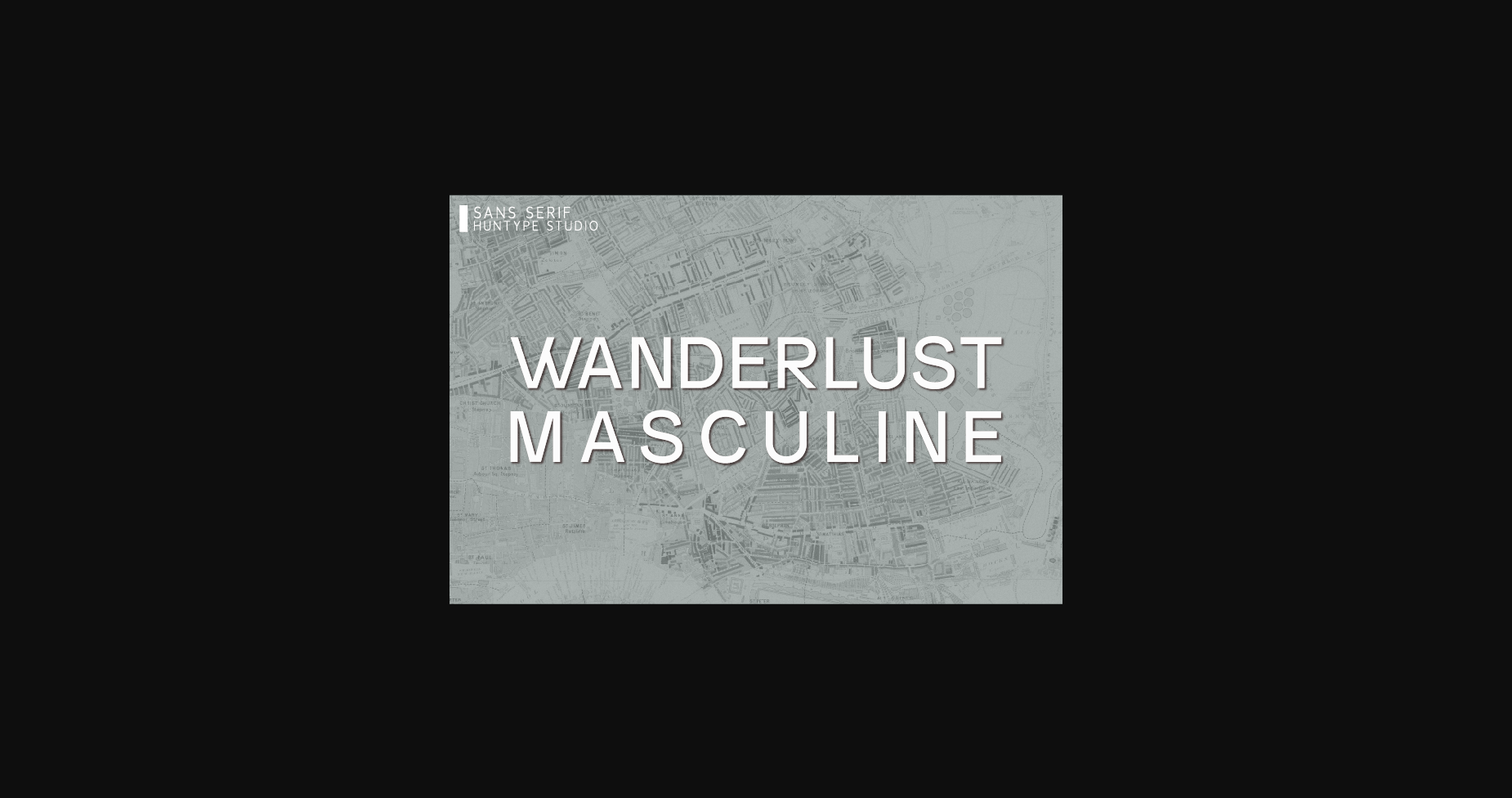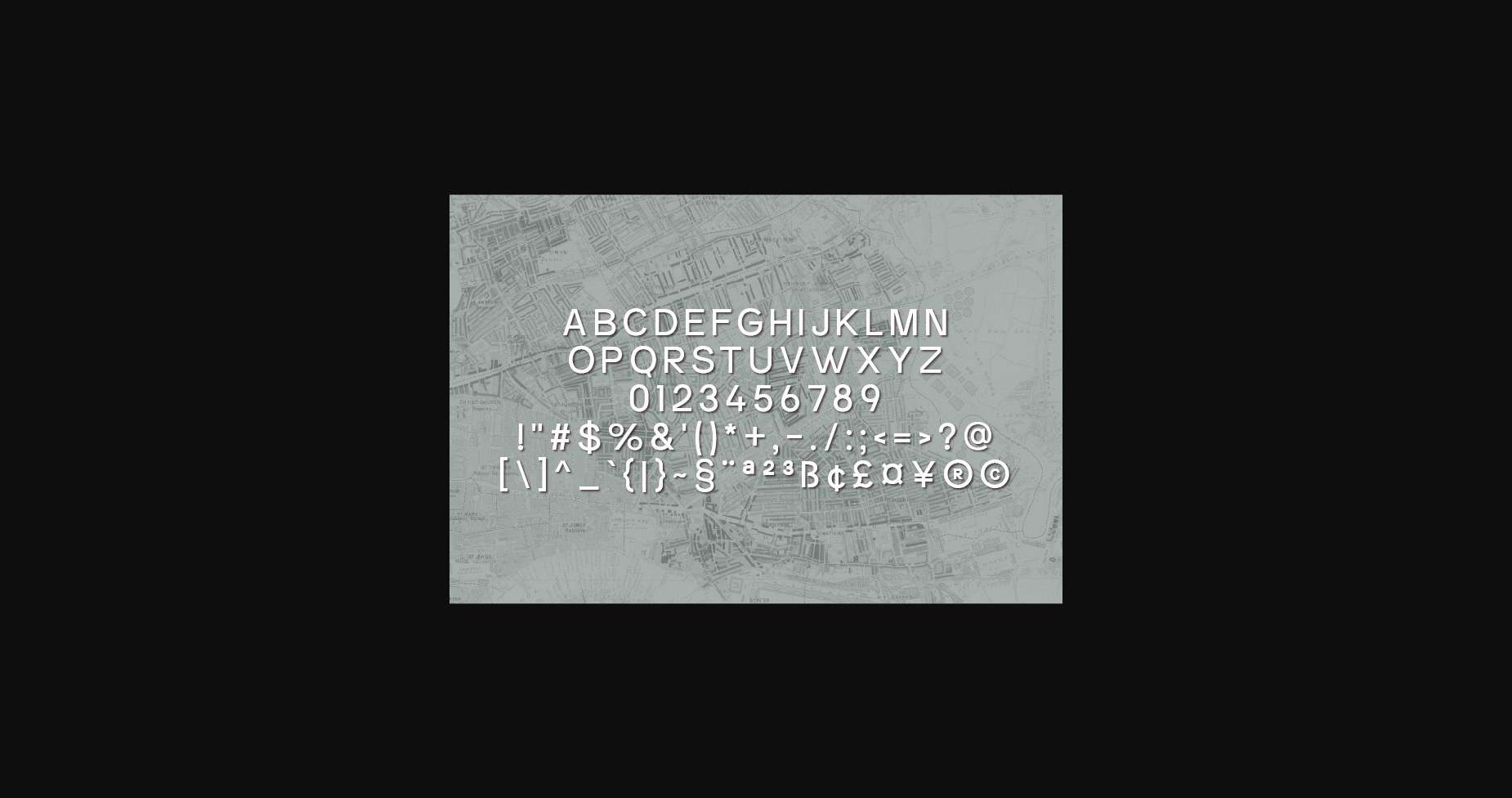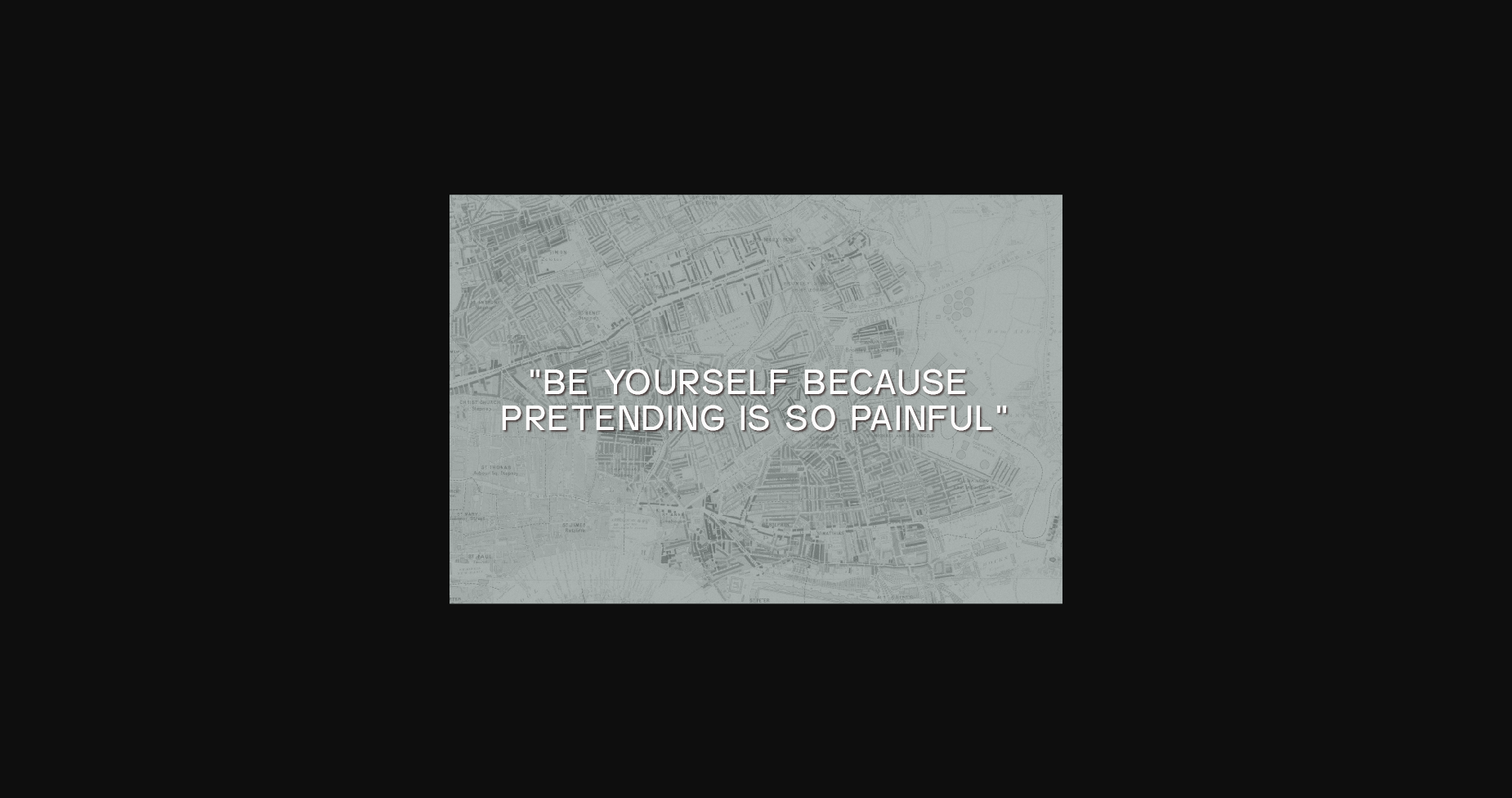
Wanderlust Masculine Font
About Wanderlust Masculine Font
Wanderlust Masculine is a cool and neat sans serif font. Modern and classy, this font is suitable for a large variety of creative ideas. Add it confidently to your projects and you will love the results!